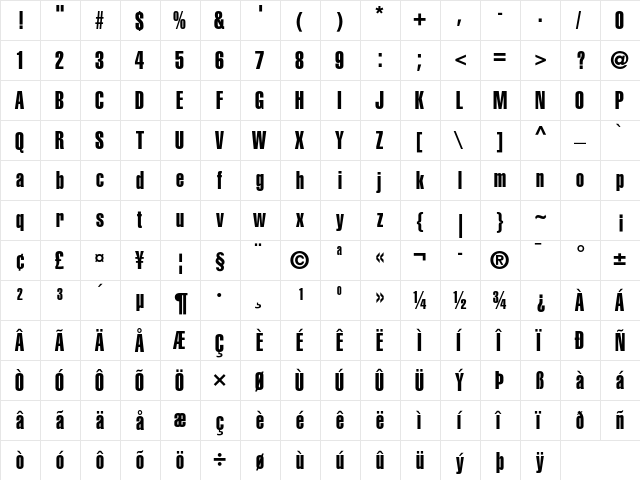
Helvetica LT Std Extra Compressed
| Designer | Max Miedinger |
Design Context for Helvetica LT Std Typeface
Helvetica LT Std offers clean, dependable letterforms without strong stylistic allegiance, making it a practical choice for designers who need flexibility. Its slender proportions lend an understated elegance to any composition.